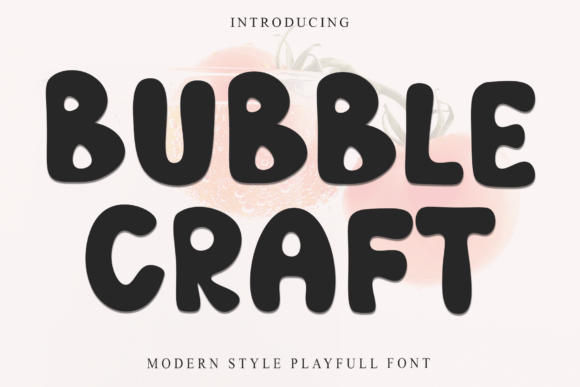
The Perfect Font for a Pop of Personality
Who hasn’t been inspired by a child’s colorful drawing or a whimsical sticker? For designers, those carefree moments can spark a creative idea that brings a project to life. In the world of typography, there’s a font that embodies that same playful spirit: Bubble Craft Font.
Bubble Craft Font is a fun and bold display font designed to add a touch of whimsy to your designs. Whether you’re creating a poster, logo, or social media graphic, this bubbly, rounded font is sure to make your text pop. Its versatility and unique charm make it a valuable asset for designers looking to add a little personality to their work.
Bubble Craft Font Key Features
- Font Family: Bubble Craft Font comes in a single font family with multiple styles, including regular, bold, italic, and bold italic.
- Character Set: The font includes a wide range of characters, including uppercase and lowercase letters, numbers, punctuation marks, and special characters.
- Unique Characteristics: The Bubble Craft Font features a playful, hand-drawn design with rounded edges and a bubbly texture, making it perfect for creating whimsical and fun designs.
Bubble Craft Font Review
I recently had the chance to work with the Bubble Craft Font, and I must say it’s a unique and playful addition to any design project. ✨ One of the things that immediately stood out to me was its versatility – it can be used for both formal and informal projects, making it a great choice for designers who need a font that can adapt to different styles.
The Bubble Craft Font also features a wide range of characters, including numerals, punctuation, and even special symbols. ✨ This makes it a great choice for designers who need to include a lot of text in their projects. Additionally, the font is highly customizable, allowing designers to adjust the size, color, and style to fit their specific needs.
While the Bubble Craft Font is a great choice for many design projects, there are some limitations to consider. ⚠️ One of the main issues I had was with the font’s readability – at smaller sizes, the characters can become difficult to distinguish. Additionally, the font may not be the best choice for projects that require a lot of precision or technical writing.
Overall, I would recommend the Bubble Craft Font for designers who are looking for a unique and playful addition to their projects. While it may have some limitations, its versatility and customizability make it a great choice for many design projects.
- Unique and playful design
- Wide range of characters, including numerals, punctuation, and special symbols
The Bubble Craft Font is ideal for:
- Stationery and greeting cards